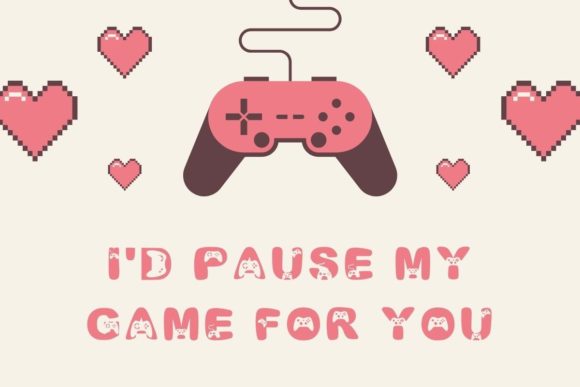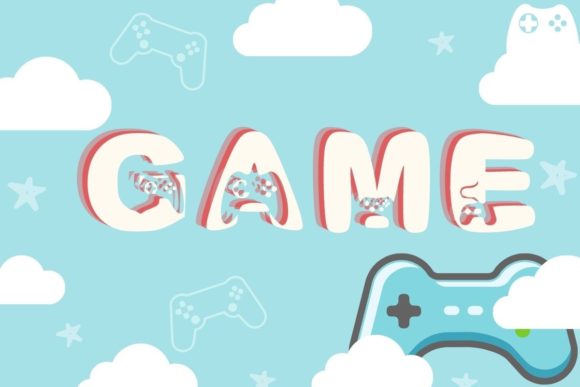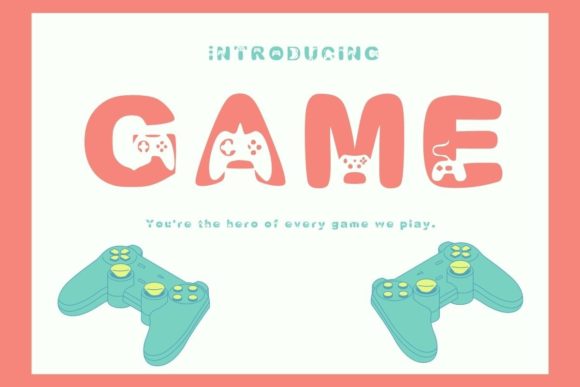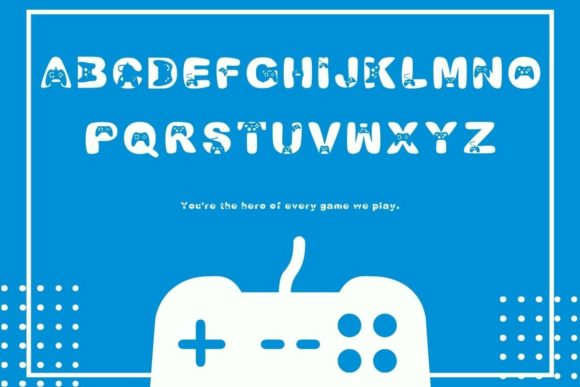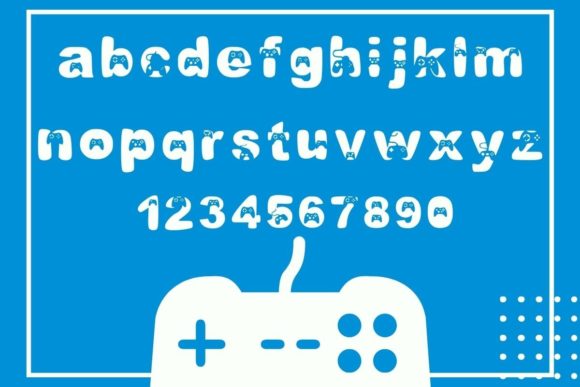
Introduction to Play Game Font
Game is a cool, incredibly cute and friendly display font.
Add it to each of your party invitation, gathering or pretty much any design that requires a touch of youth and joy .
Key Features of Play Game Font